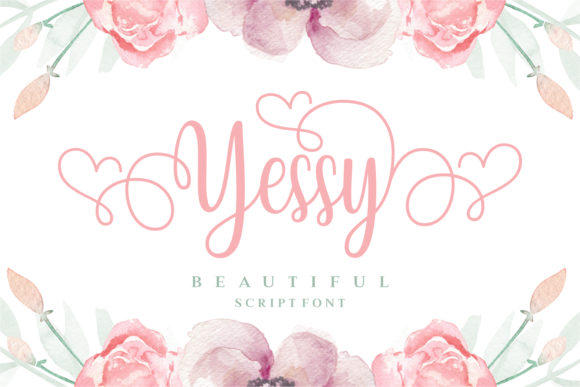
Introducing Yessy Font, a stunning script font that will take your designs to new heights. Created by Situjuh, this font is full of feminine swashes and glyphs that bring a touch of elegance to any design. Yessy Font is the perfect addition to your font collection and is sure to elevate your creative projects to the next level.
Yessy Font is not just any script font. It’s a font that oozes sophistication and class, making it perfect for any project that requires a touch of elegance. Whether you’re designing wedding invitations, logos, or social media graphics, Yessy Font will help you achieve a professional and polished look.
This font family has been carefully designed to offer a range of styles and options to suit any project. From bold and expressive to delicate and intricate, Yessy Font has it all. The glyphs and swashes add a touch of flair and femininity, making it an ideal choice for anything from fashion to beauty to lifestyle brands.
Yessy Font is not just beautiful, it’s also easy to use. With a variety of weights and styles, you can mix and match to create the perfect combination for your design. The font is also versatile and works seamlessly with other fonts, making it a great choice for designers looking to add a unique touch to their work.
Don't settle for ordinary fonts when you can have Yessy Font. This font is not just another script font - it’s a font that will elevate your designs to a whole new level. The attention to detail and the range of options available make Yessy Font a must-have for any designer.
In conclusion, Yessy Font is a beautiful script font that will add a touch of elegance and sophistication to any design project. It’s perfect for designers who want to stand out and make a statement. So why wait? Download Yessy Font today and take your designs to the next level.